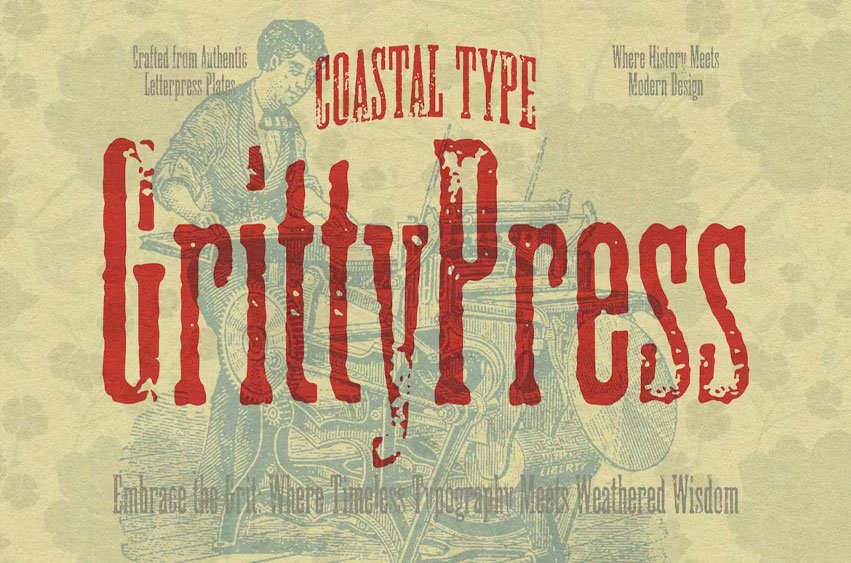
GrittyPress Font that pays homage to the rich history of letterpress printing, where each character is imbued with a sense of authenticity and character. Inspired by the weathered look of aged printing plates, this font captures the essence of bygone eras, infusing modern designs with a touch of nostalgia.
With its timeless typography, “GrittyPress” brings a unique charm to any project, whether it’s a vintage-inspired poster, a rustic wedding invitation, or a classic book cover. Every letter is crafted with care, preserving the imperfections and nuances that give it its distinct personality.
As you type, you can almost feel the texture of the old printing press beneath your fingertips, evoking a sense of craftsmanship and tradition. Yet, amidst its weathered appearance, there lies a wisdom that transcends time—a reminder that beauty can be found in imperfection, and that true character only grows stronger with age.
“GrittyPress” invites you to embrace the beauty of imperfection, to celebrate the rich history of letterpress printing, and to weave a story that is as timeless as it is enduring.